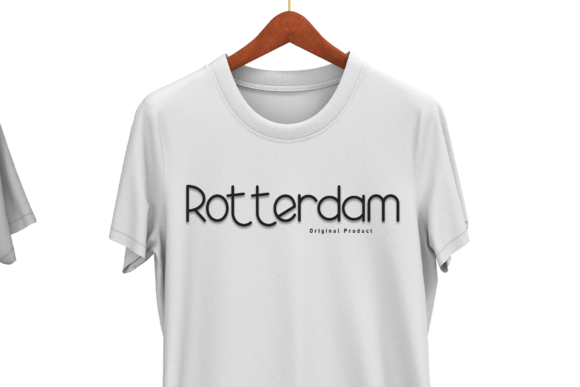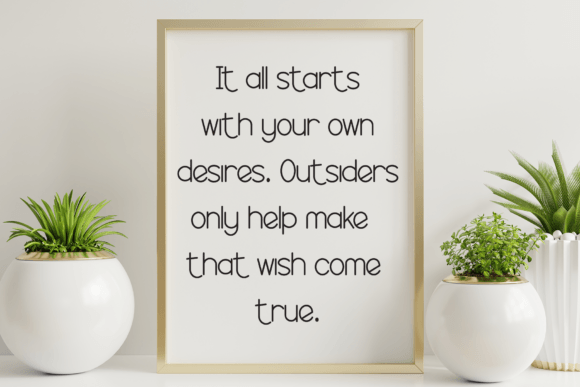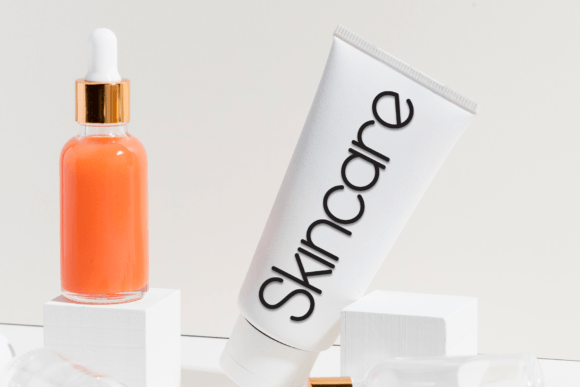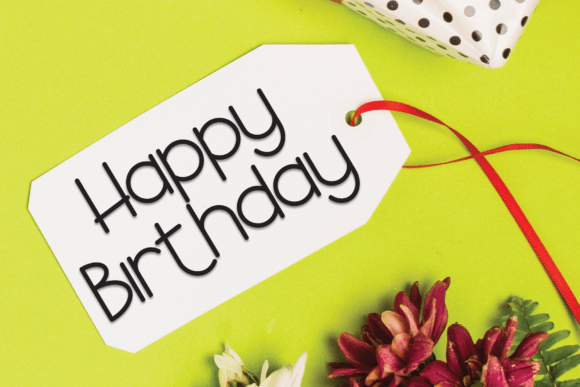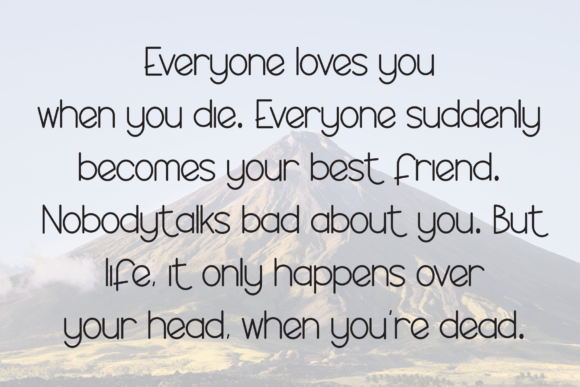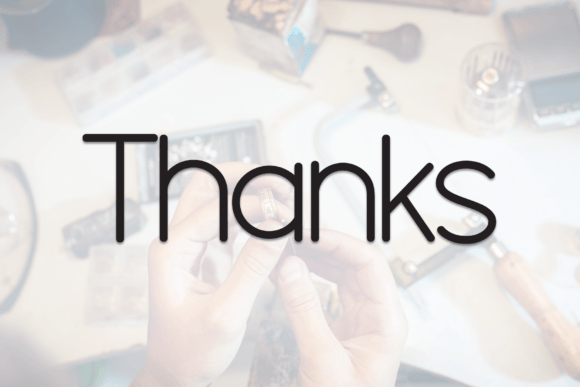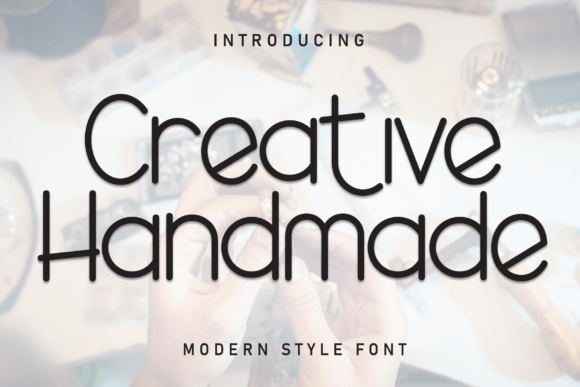
Introducing the Creative Handmade Font: A Charming and Approachable Handwritten Display Font
Are you looking for a font that can add a touch of warmth and personality to your designs? Look no further than the Creative Handmade Font, a charming and approachable handwritten display font that is sure to delight. With its friendly character and playful spirit, this delightful font is perfect for enhancing wedding invitations, greeting cards, or any design in need of a joyous boost.
The Perfect Font for Adding a Personal Touch
The Creative Handmade Font is designed to bring a sense of warmth and approachability to your designs. Its handwritten style is reminiscent of a personal letter or a heartfelt note, making it perfect for projects where you want to add a personal touch. Whether you’re designing a wedding invitation, a greeting card, or a social media post, this font is sure to make your text stand out and connect with your audience.
Key Features of the Creative Handmade Font
- Handwritten style: The Creative Handmade Font has a beautiful, handwritten style that is sure to add a touch of personality to your designs.
- Friendly character: The font has a friendly character that is approachable and inviting, making it perfect for projects where you want to create a warm and welcoming atmosphere.
- Playful spirit: The font has a playful spirit that is sure to add a touch of fun and whimsy to your designs.
- Versatile: The Creative Handmade Font is versatile and can be used for a wide range of projects, from wedding invitations to greeting cards, social media posts, and more.
Why Choose the Creative Handmade Font?
There are many reasons why you should choose the Creative Handmade Font for your next project. Here are just a few:
- Unique and distinctive: The Creative Handmade Font is a unique and distinctive font that is sure to make your text stand out from the crowd.
- Easy to read: Despite its handwritten style, the font is easy to read and understand, making it perfect for projects where you need to communicate a message clearly.
- Customizable: The font is customizable, allowing you to adjust the size, color, and style to suit your needs.
How to Use the Creative Handmade Font
The Creative Handmade Font is easy to use and can be incorporated into a wide range of projects. Here are a few ideas to get you started:
- Wedding invitations: The font is perfect for wedding invitations, adding a touch of warmth and romance to your design.
- Greeting cards: The font is also great for greeting cards, allowing you to add a personal touch to your message.
- Social media posts: The font can be used to create eye-catching social media posts that are sure to engage your audience.
- Branding and packaging: The font can also be used for branding and packaging, adding a touch of personality to your brand.
Tips for Getting the Most Out of the Creative Handmade Font
Here are a few tips for getting the most out of the Creative Handmade Font:
- Use it sparingly: While the font is beautiful, it’s best to use it sparingly to avoid overwhelming your design.
- Experiment with different colors: The font looks great in a wide range of colors, so don’t be afraid to experiment and find the perfect color for your design.
- Pair it with other fonts: The font can be paired with other fonts to create a unique and interesting design.
The Creative Handmade Font is a charming and approachable handwritten display font that is sure to add a touch of warmth and personality to your designs. With its friendly character and playful spirit, this delightful font is perfect for enhancing wedding invitations, greeting cards, or any design in need of a joyous boost. So why not give it a try and see the difference it can make in your next project?